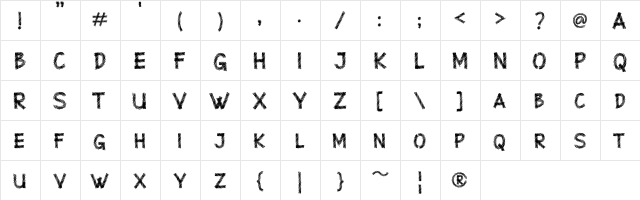
Superstition Sketch-DEMO Regular
| Designer | Galih Sulistya Aji |
Design Context for Superstition Sketch-DEMO Typeface
Superstition Sketch-DEMO is a composed and adaptable typeface that performs quietly and consistently across a wide range of design contexts.